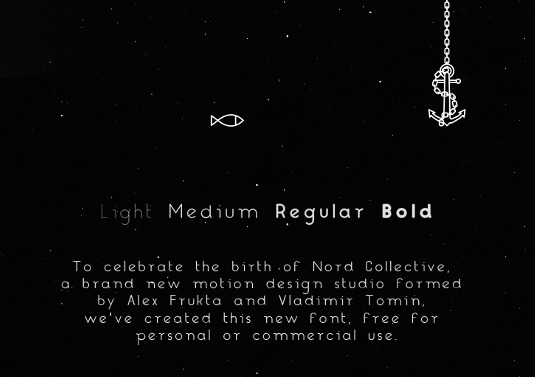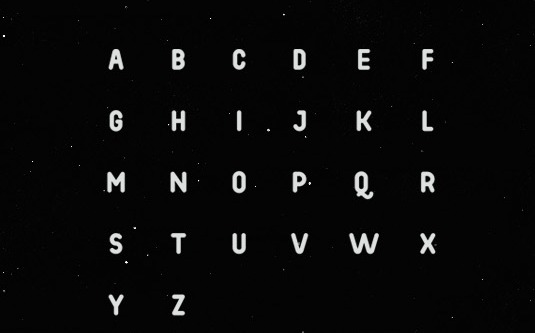
Font of the day: Nord
Every day we showcase the best fonts on the web. Today it's Nord by Alex Frukta and Vladimir Tomin, and it's free for personal and commercial use.
Nord by Alex Frukta and Vladimir Tomin
Nord is a new font created by Alex Frukta and Vladimir Tomin to celebrate the launch of the Nord Collective, their new motion graphics studio.
Free for both personal and commercial use, Nord is an OpenType font that comes in four weights - Bold, Light, Medium and Regular - and which included Cyrillic as well as Latin characters.